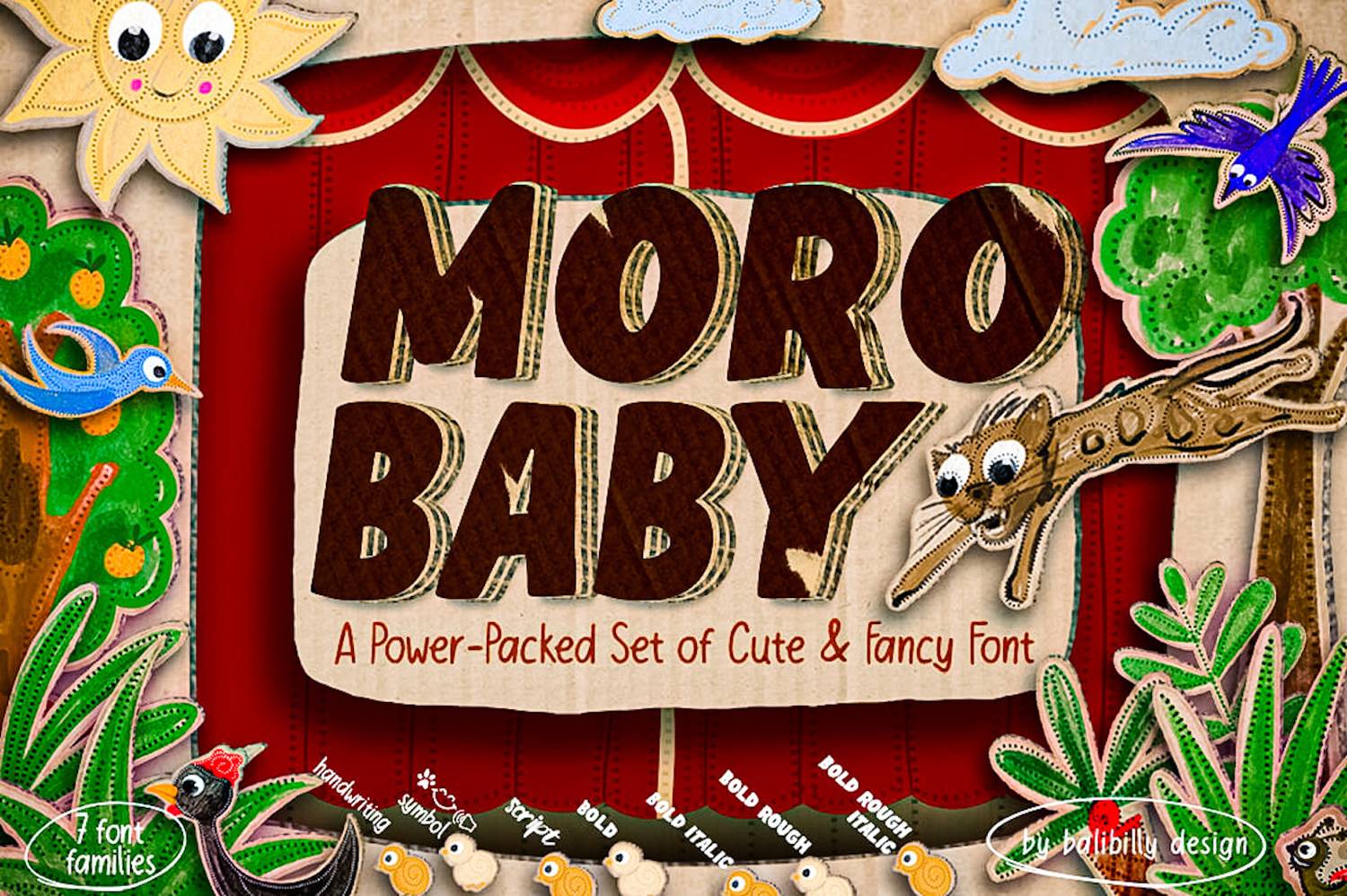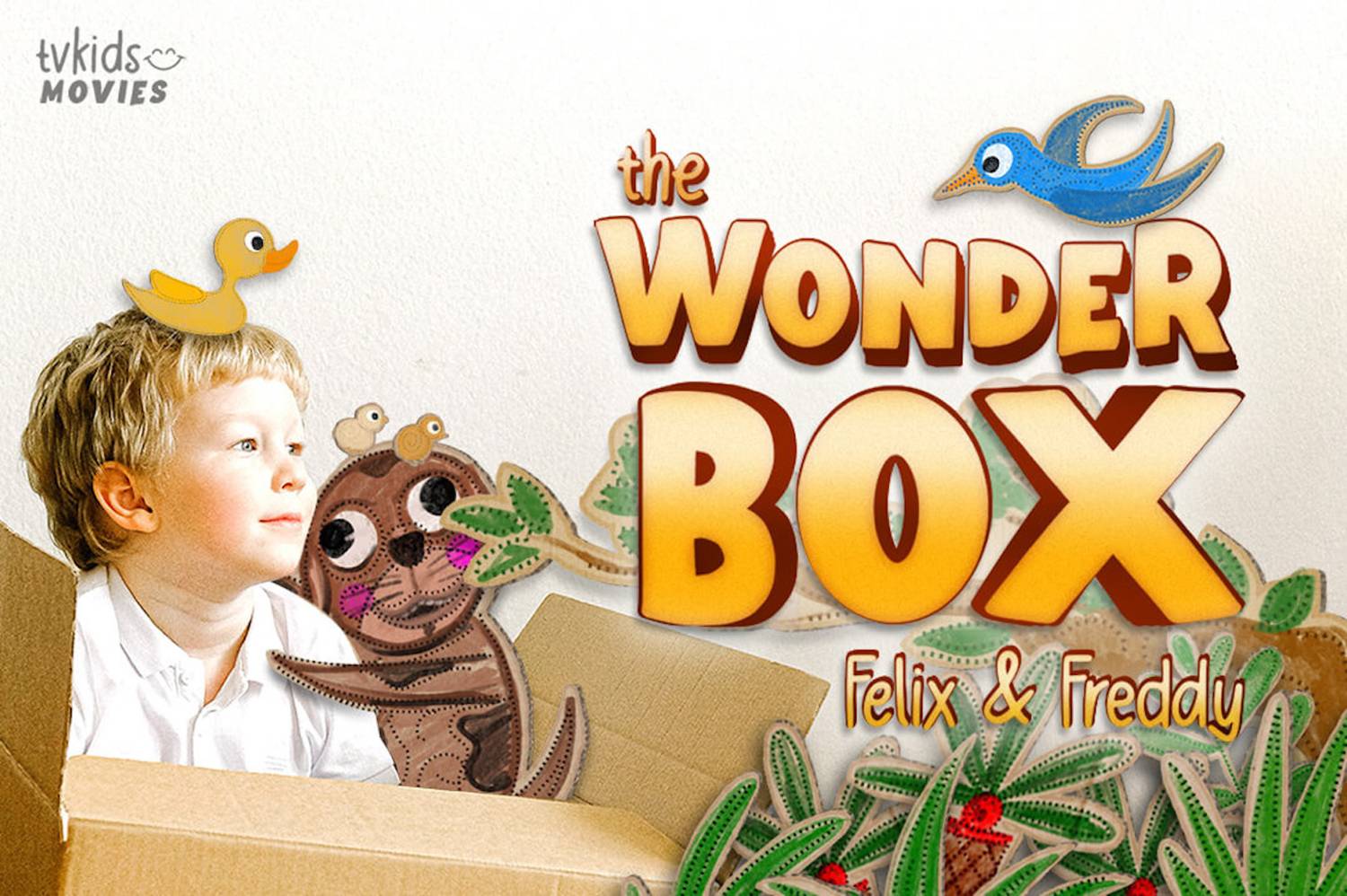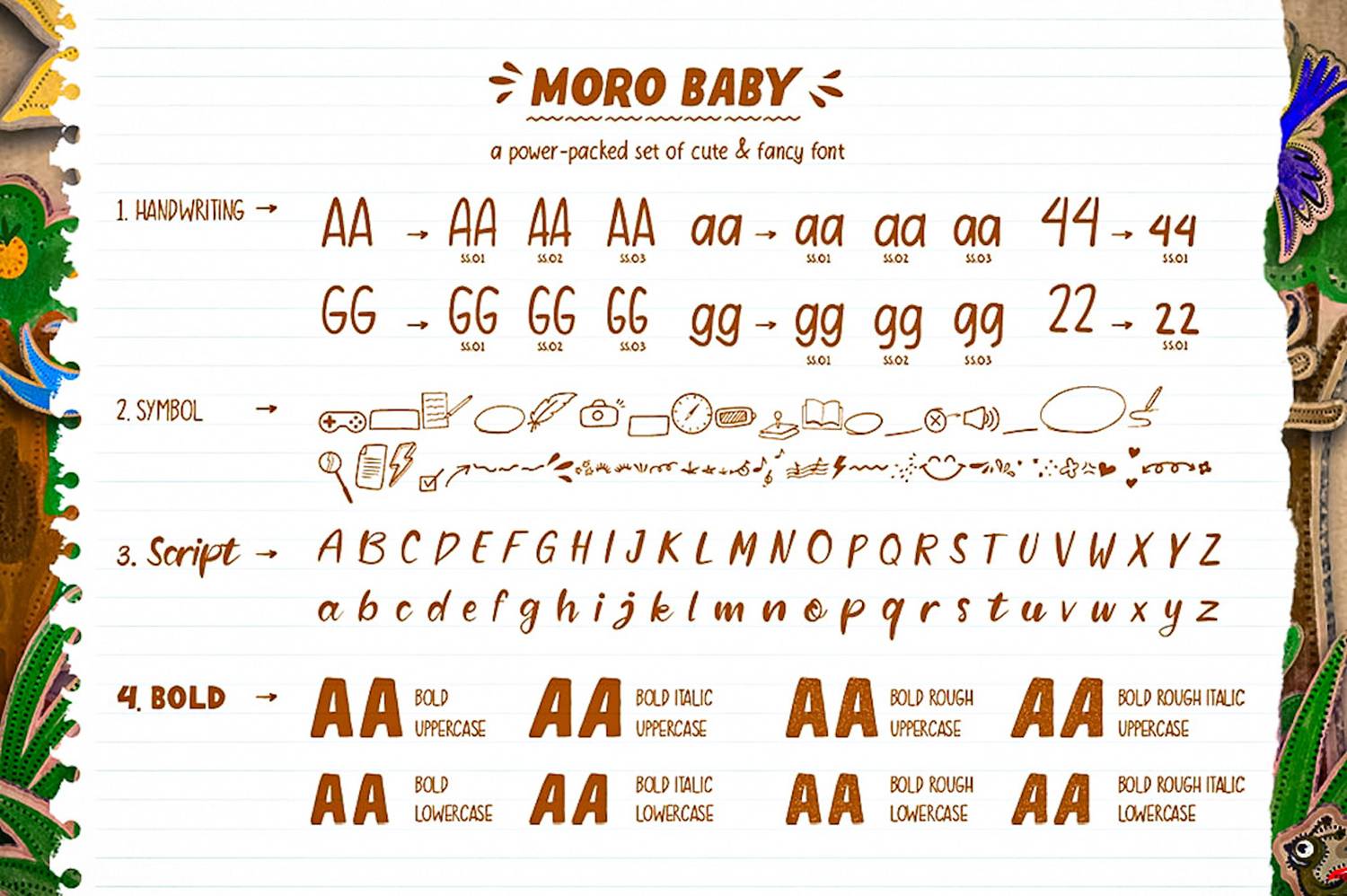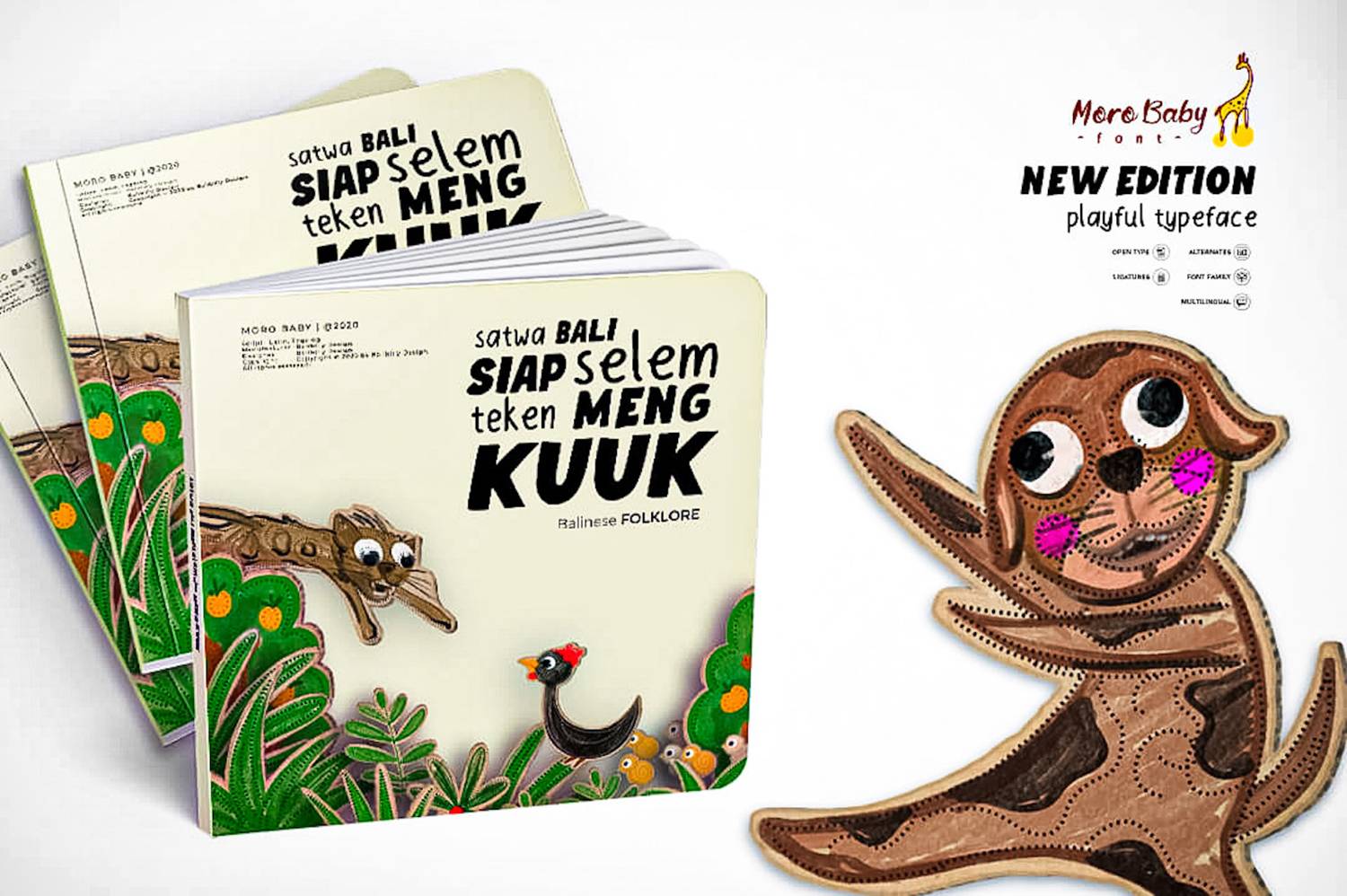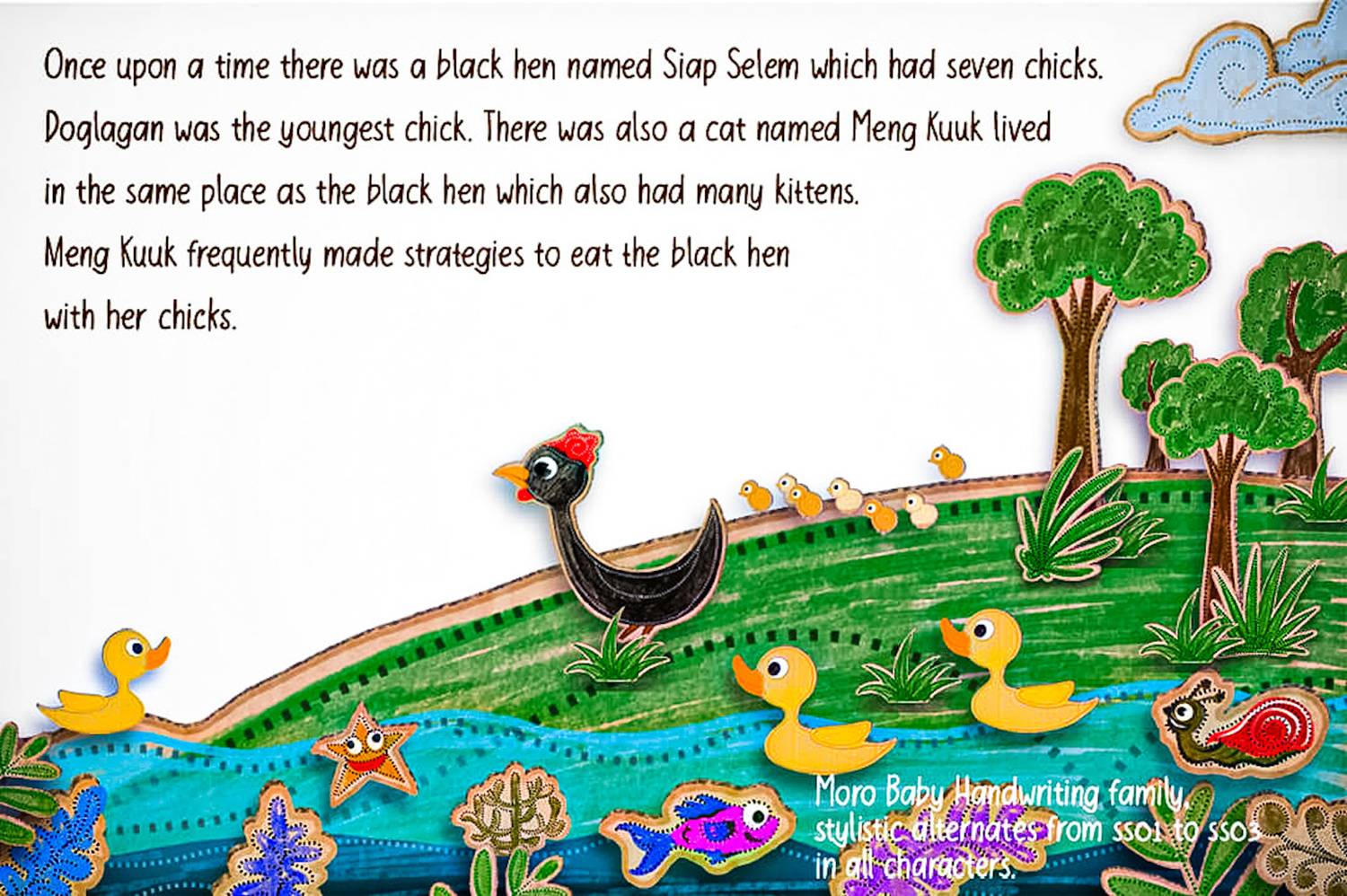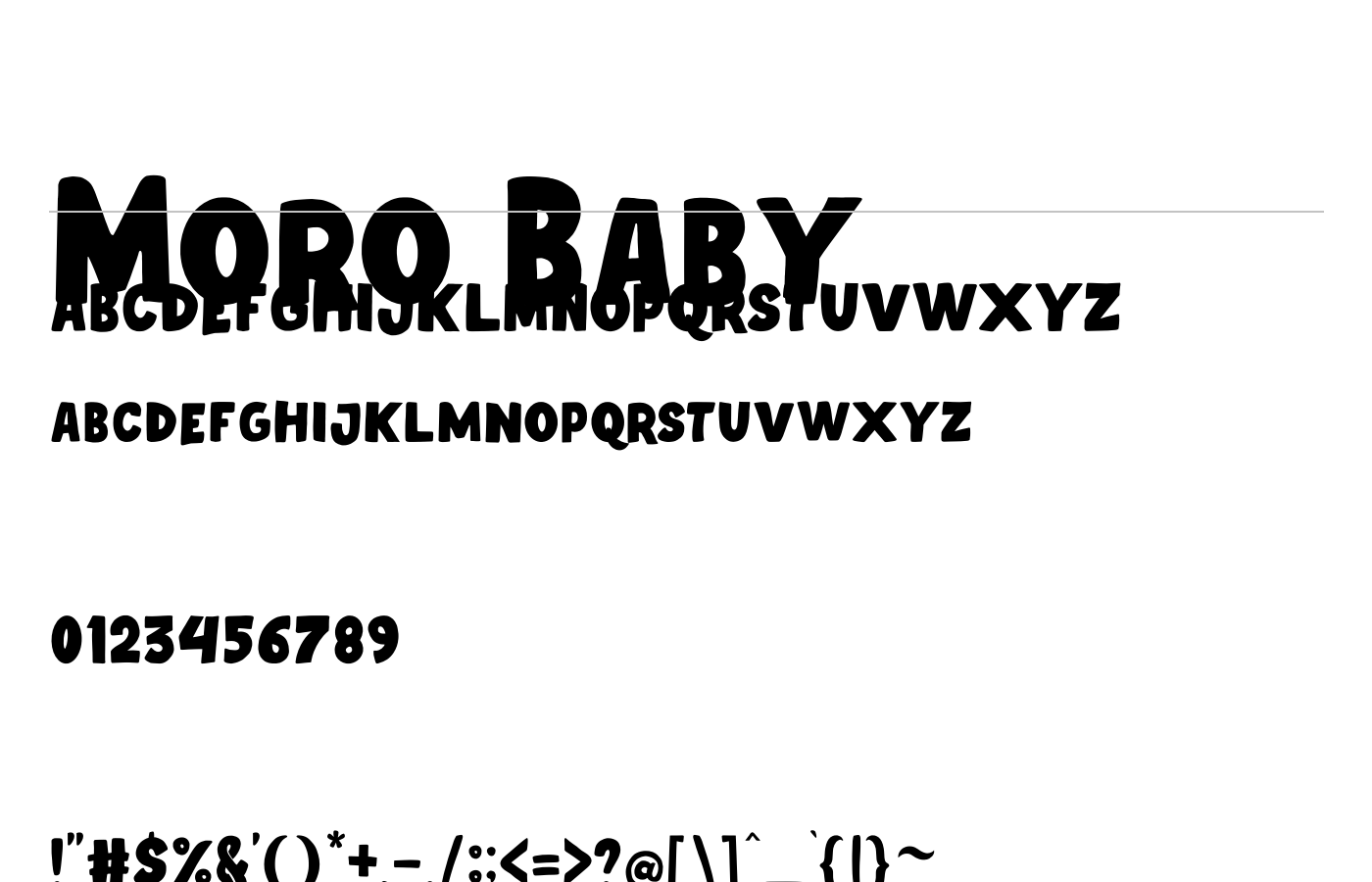
Moro Baby is a playful, bold sans serif font with chunky, rounded letterforms that create a friendly and approachable feel. Its irregular shapes and thick strokes give it a fun, casual personality, making it ideal for children’s products, informal branding, and eye-catching headlines. This font works well in designs that need a lively, whimsical touch with strong readability in large sizes.
Moro Baby Font
About Moro Baby Font
| Font family | Moro Baby Font |
| Designer | Balibilly Design |